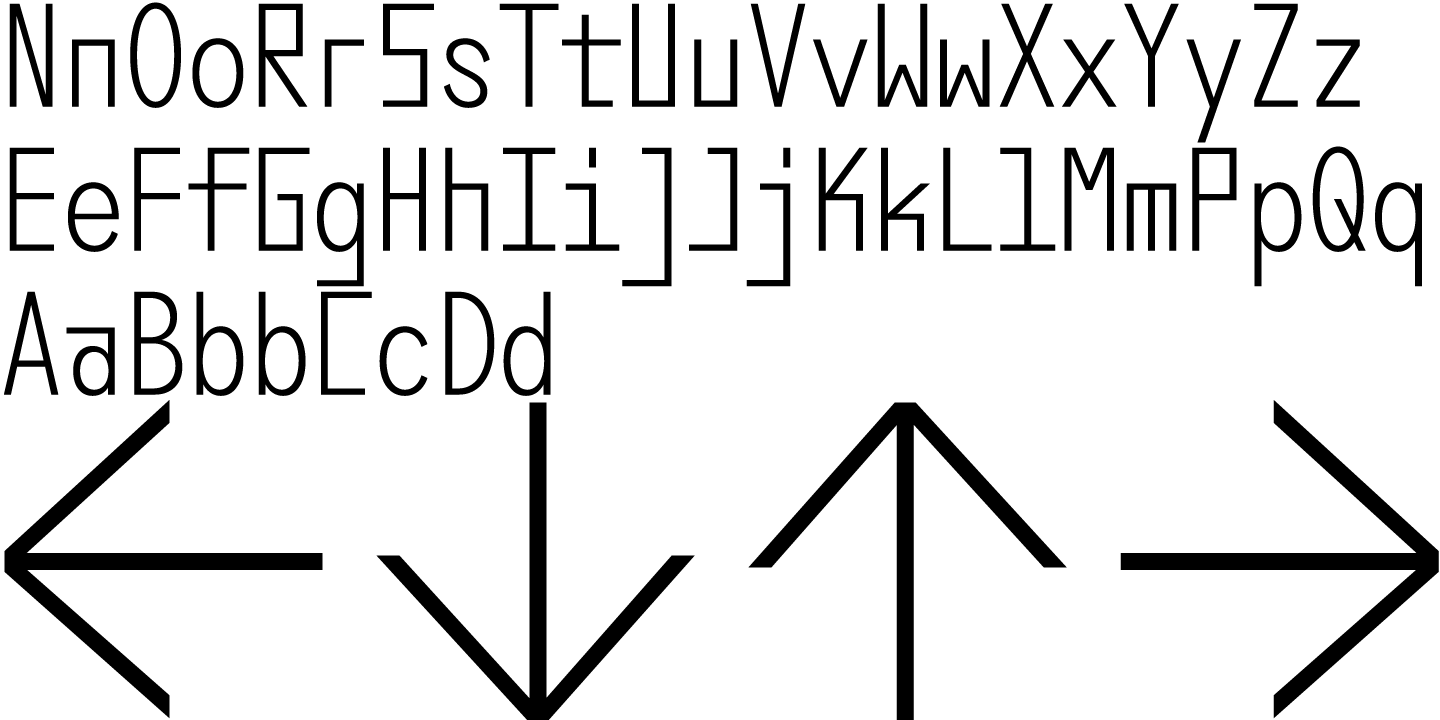
Grotesk Remix Monospace Font is perfect for code editors, terminal interfaces, programming documentation, tech startup branding, digital art projects, cyberpunk aesthetics, developer portfolios, and futuristic UI designs that require precise character alignment with distinctive visual character.
Grotesk Remix Monospace Font is exciting because it revolutionizes traditional monospace typography by combining classic grotesque design principles with contemporary digital aesthetics. The font features perfectly uniform character spacing while maintaining distinctive personality through its bold, geometric letterforms that create a striking balance between functionality and visual impact.
The Grotesk Remix Monospace Font family includes essential coding variants: Light, Regular, Medium, Bold, and Black weights, each maintaining perfect monospace alignment. The collection also features alternative character sets and stylistic variations that allow developers and designers to customize their coding environment while preserving optimal readability and character distinction.
This innovative typeface transforms coding environments and technical applications with its unique blend of functionality and style. Whether you're building development tools, creating technical documentation, or designing futuristic interfaces, Grotesk Remix Monospace Font Free Download delivers exceptional performance and distinctive character that sets projects apart from standard monospace fonts. The font's carefully engineered letterforms ensure perfect alignment in code blocks while providing enhanced visual appeal for extended programming sessions. Developers appreciate its clear distinction between similar characters and its ability to reduce eye strain during long coding marathons. The comprehensive character set includes all programming symbols, ligatures, and special characters essential for modern development workflows. With its bold aesthetic and technical precision, Grotesk Remix Monospace Font elevates coding environments into visually engaging workspaces that inspire creativity while maintaining the functional excellence that professional developers demand.